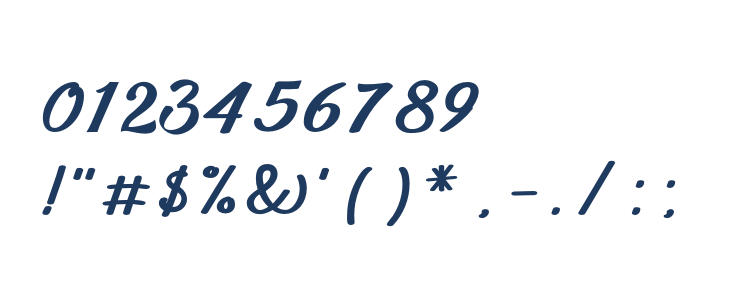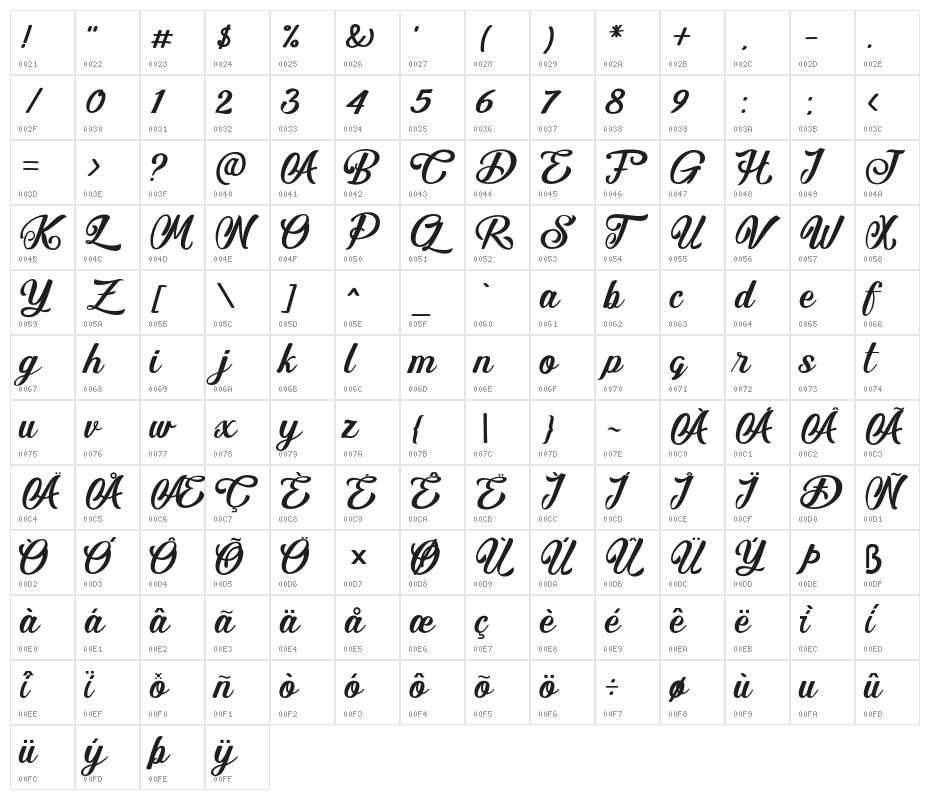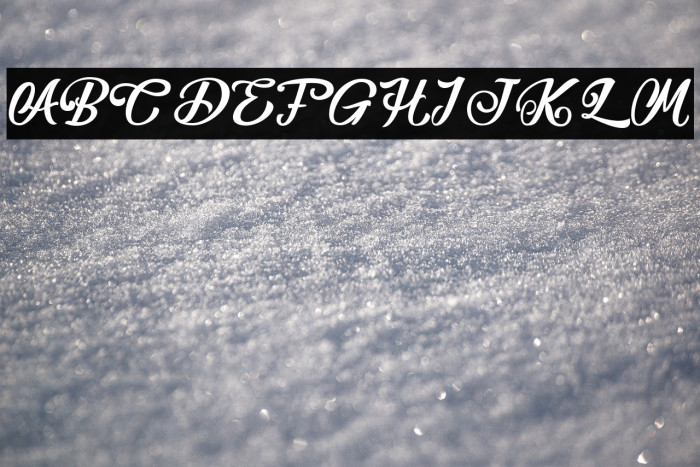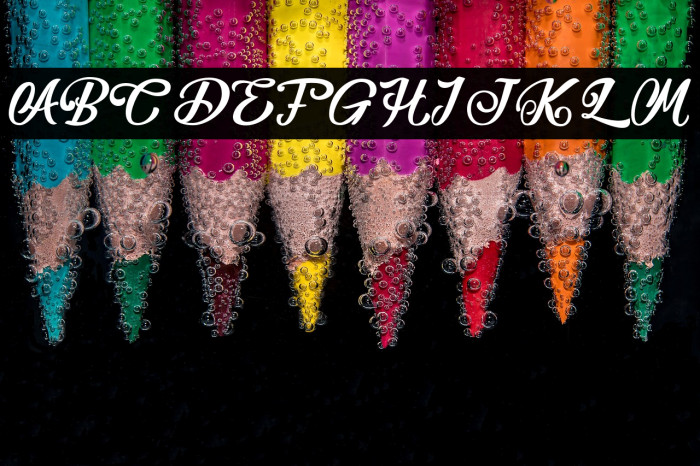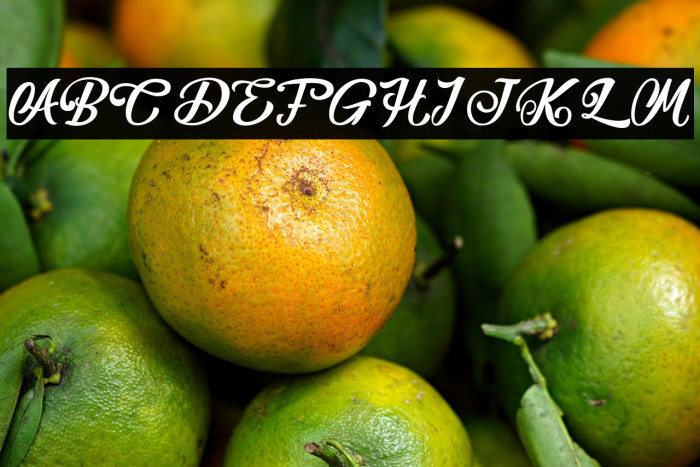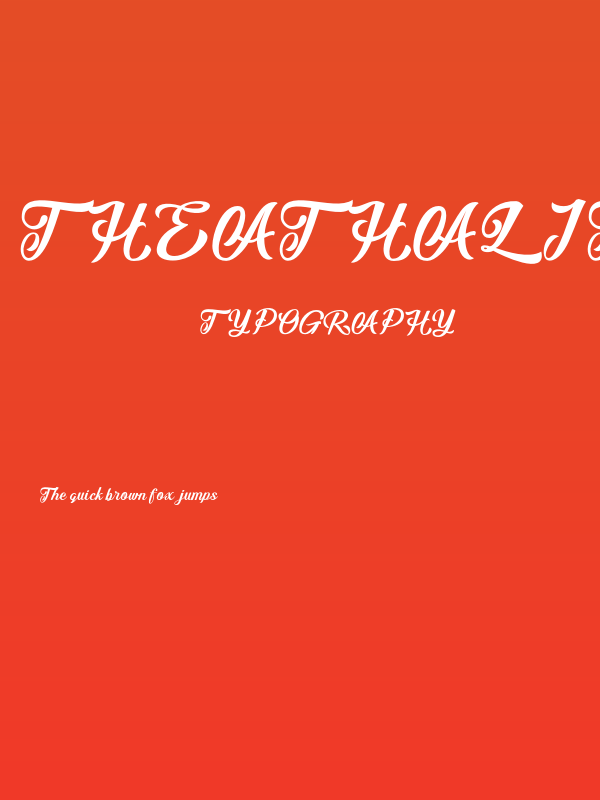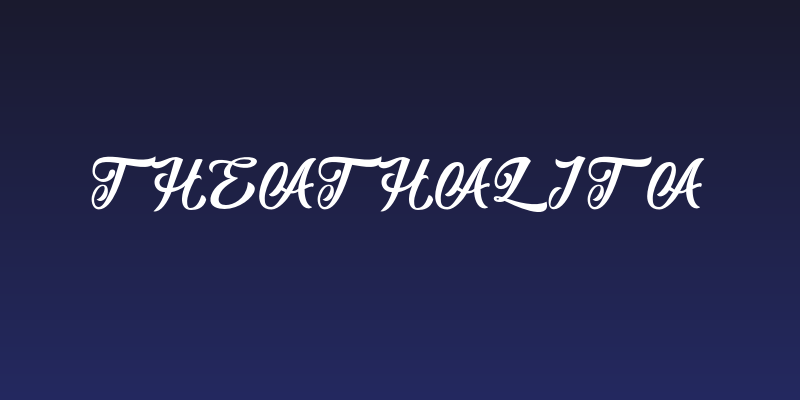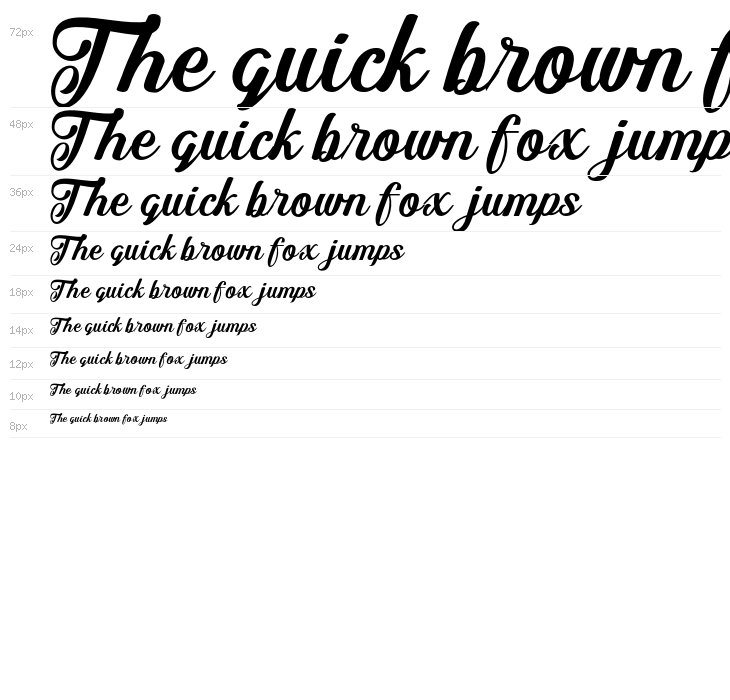
TheAthalita Font
TheAthalita Description
This font is a stylish and elegant script typeface that features a flowing, cursive design. The uppercase letters are ornate with a classic flair, while the lowercase letters maintain a smooth and connected appearance, enhancing readability. The numerals are bold and consistent with the overall script style, providing a harmonious look. Special characters are well-integrated, maintaining the font's sophisticated aesthetic. This typeface exudes a sense of elegance and refinement, making it suitable for formal and decorative applications.
Overall StyleElegant, Decorative
Use CaseLogos, Invitations, Decorative text
Proposed ProjectsIdeal for wedding invitations, elegant branding, greeting cards, and decorative signage.